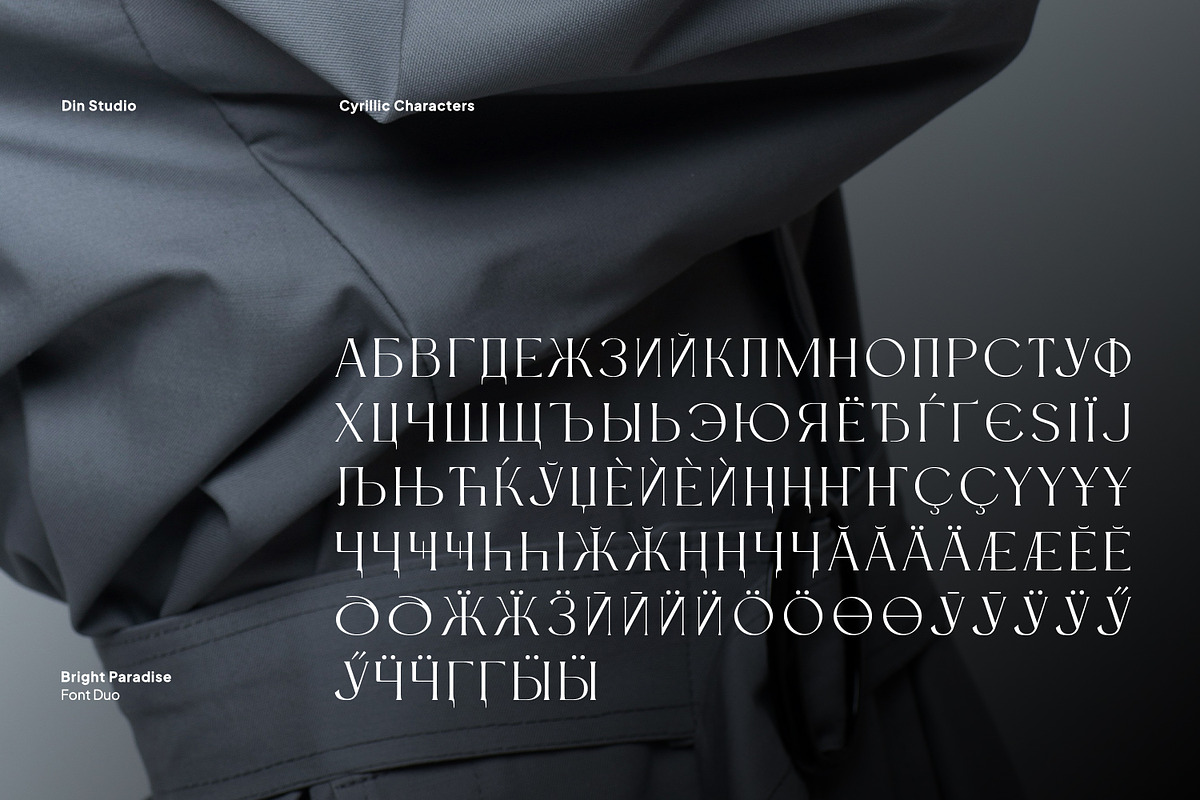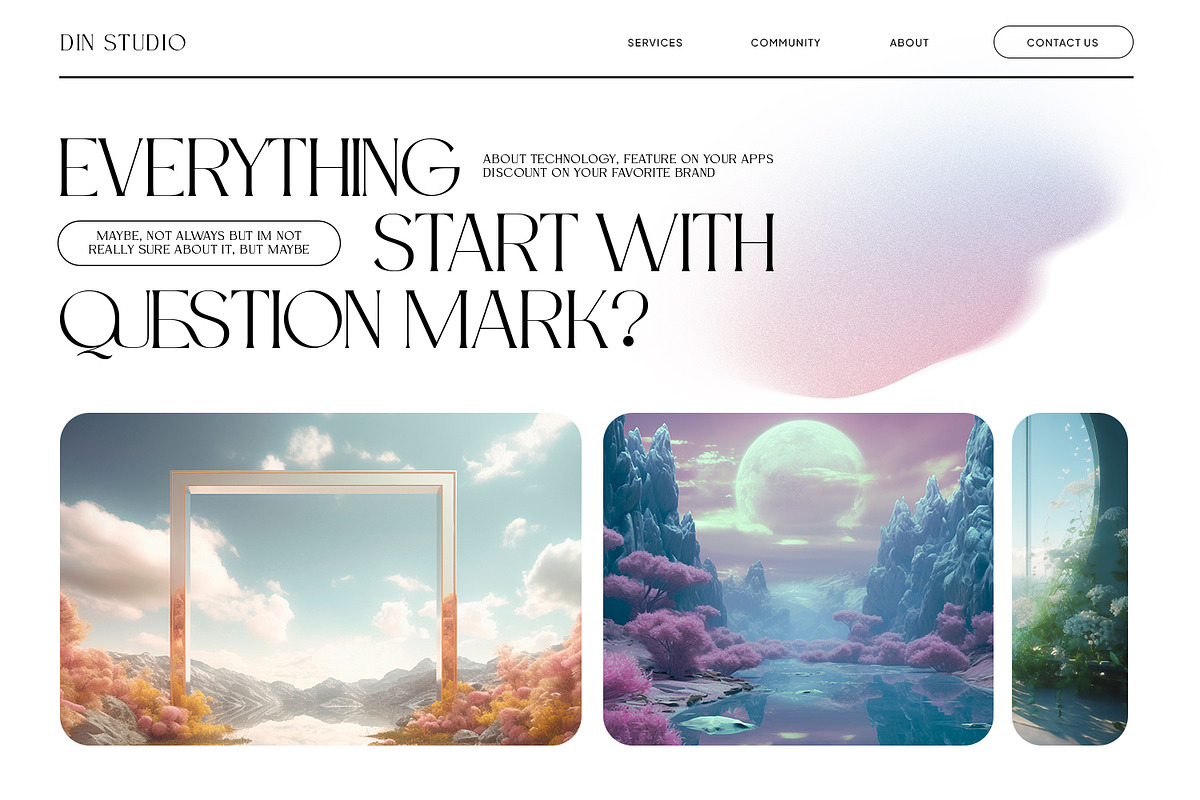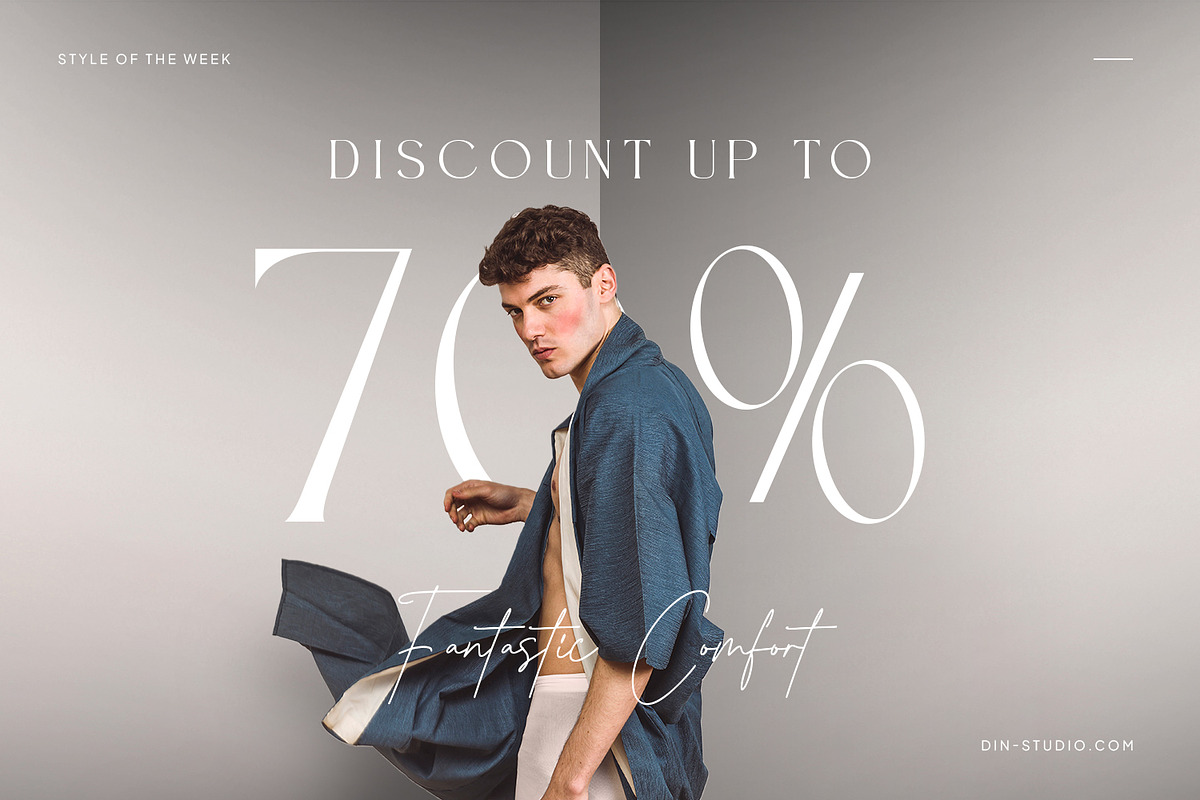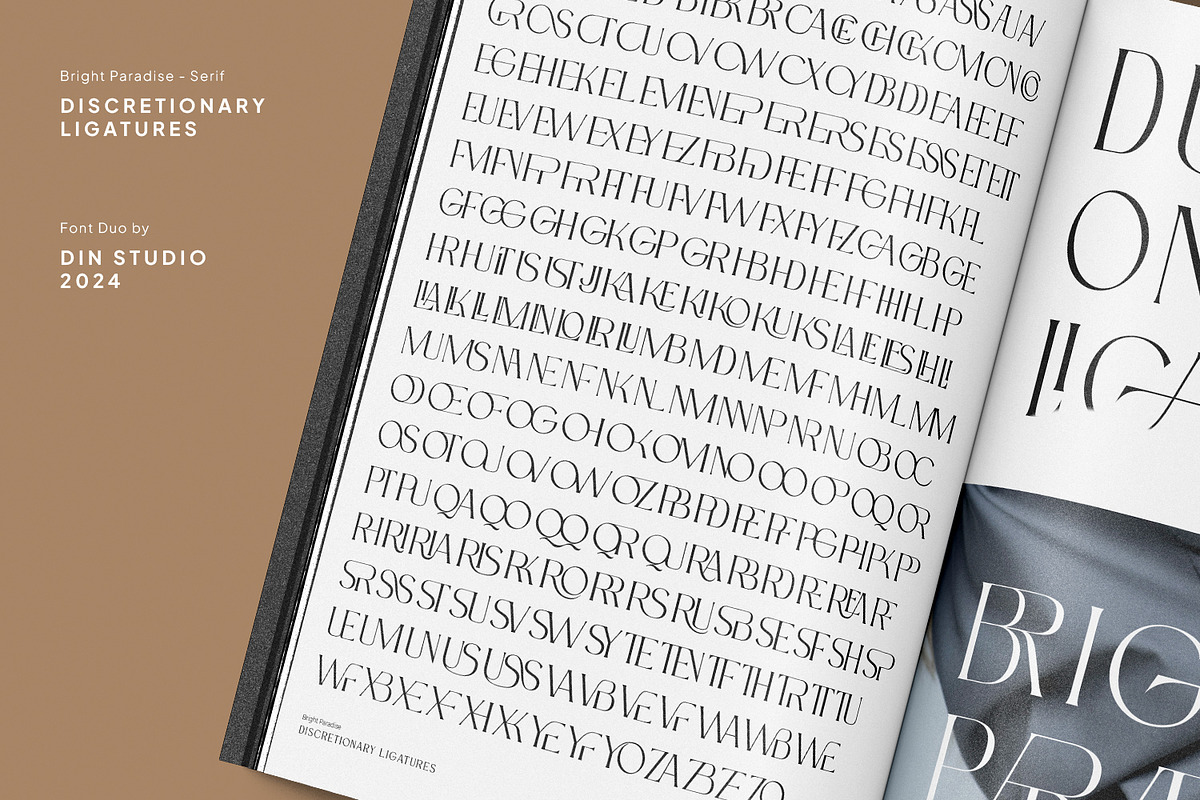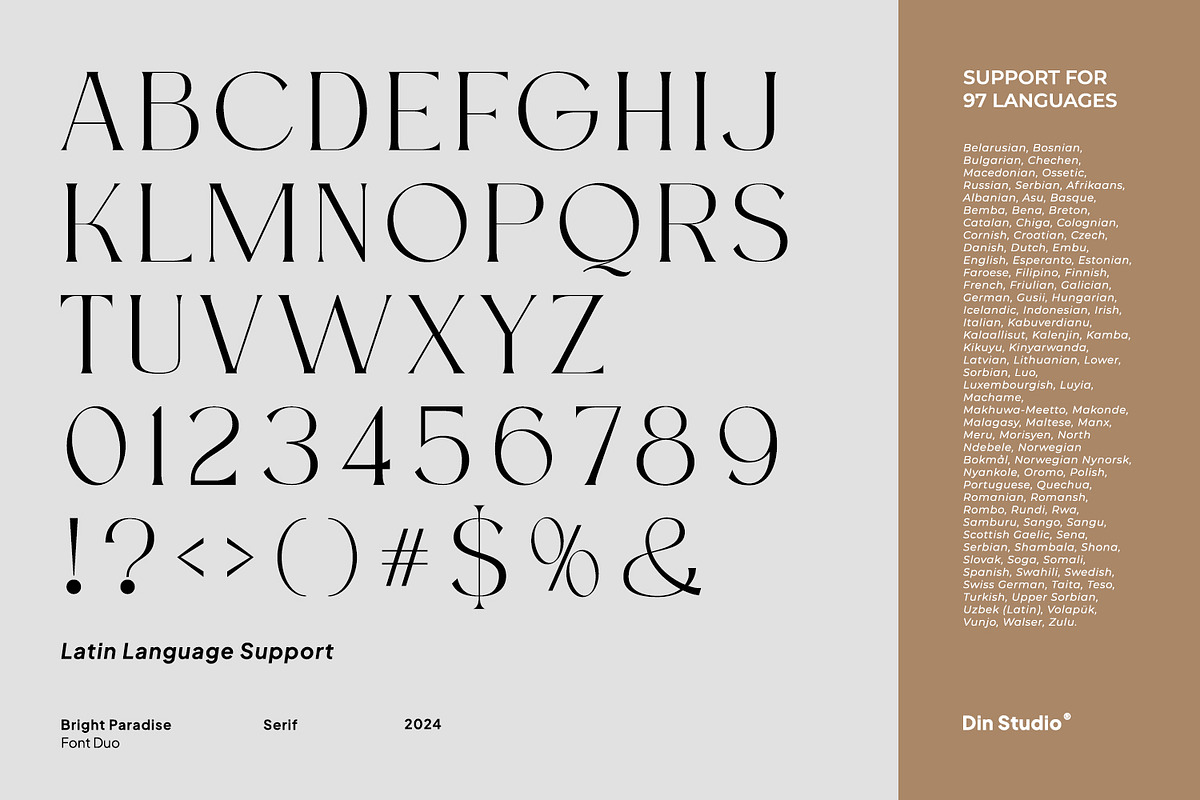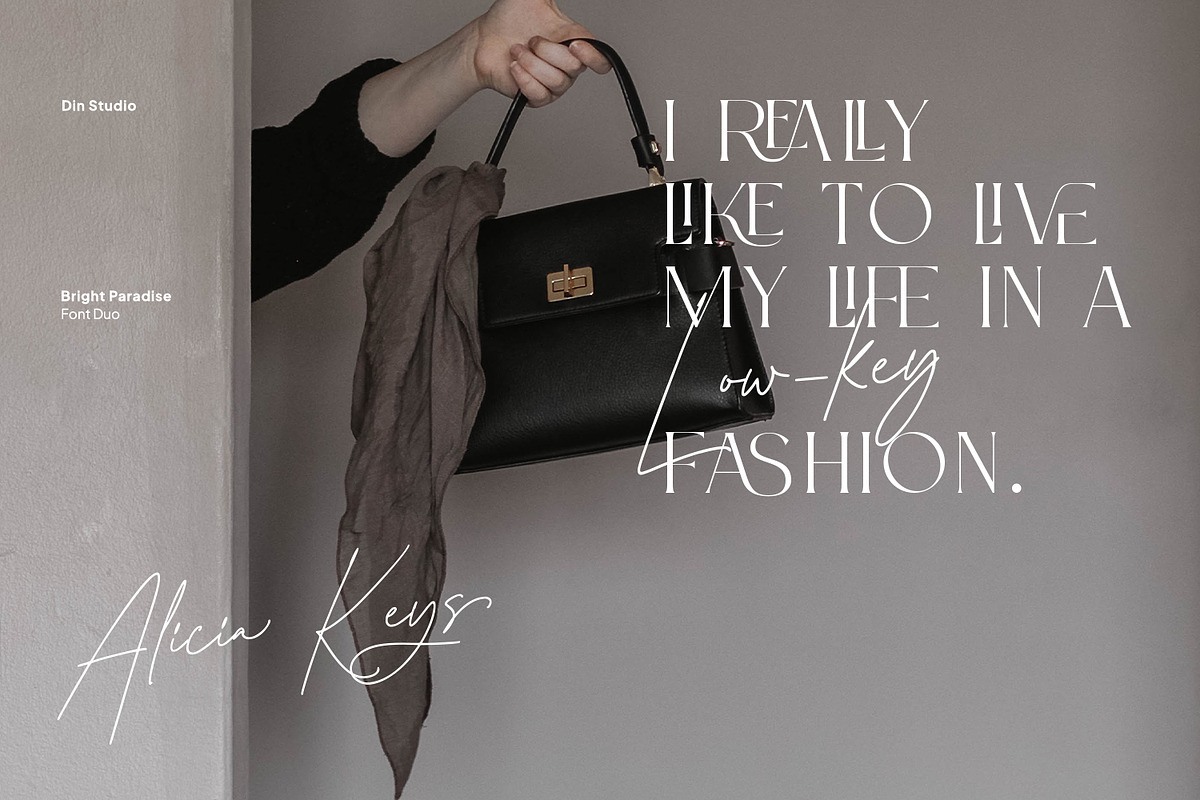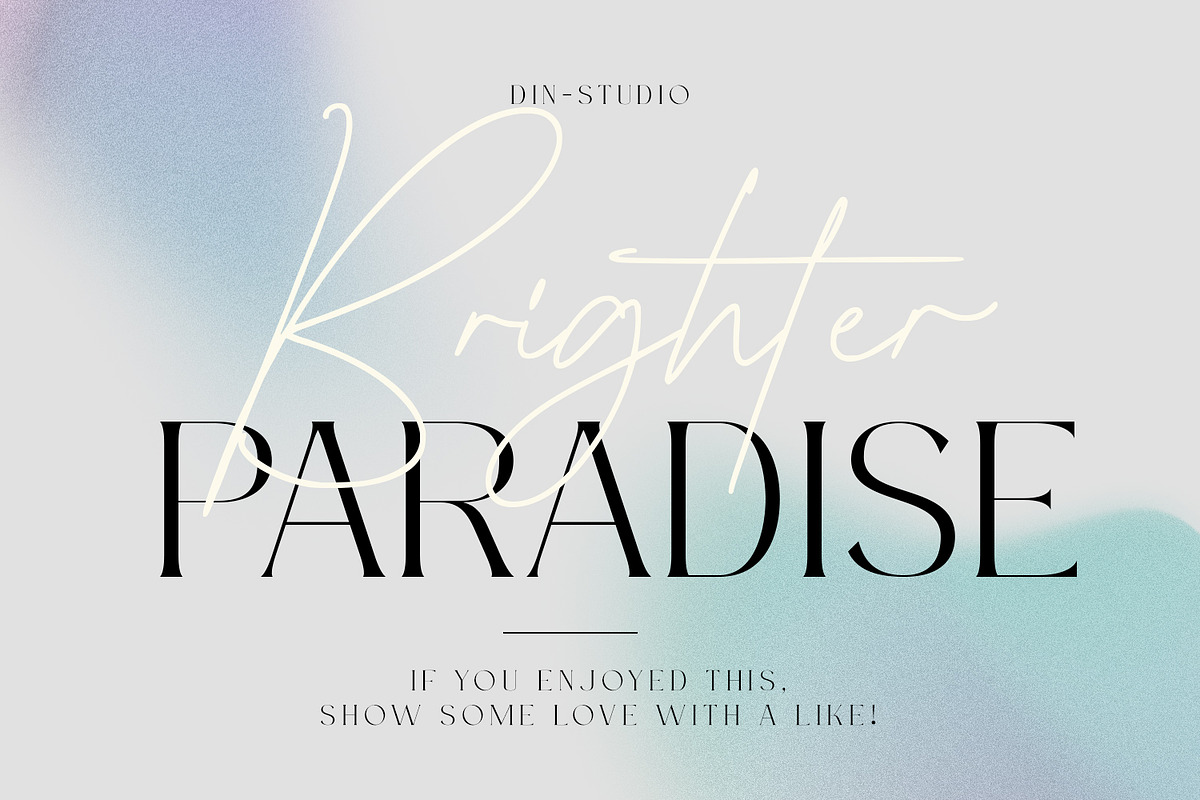
Brighter Paradise
Embark on a journey to a world of elegance and charm with Brighter Paradise, a captivating duo font that combines the timeless sophistication of serif with the graceful allure of script. Designed to evoke feelings of warmth and luxury, this duo font is the perfect choice for projects that demand a touch of refined elegance.
The serif font in Brighter Paradise exudes classic beauty with its uppercase letters and distinctive serifs. Each letter is meticulously crafted to embody grace and sophistication, making it ideal for adding a touch of timeless elegance.
Complementing the serif font is the script font, designed to resemble cursive handwriting with its fluid strokes and elegant curves. This script font adds a sense of personal touch and warmth to designs, creating a harmonious balance between tradition and modernity. Together, the two fonts in Brighter Paradise create a perfect harmony, allowing designers to effortlessly blend classic sophistication with contemporary style. In addition, enjoy the features here.
- Stylistic Sets
Brighter Paradise fits in headlines, logos, posters, flyers, branding materials, greeting cards, print media, editorial layouts, and many more designs. Find out more ways to use this font by taking a look at the font preview.